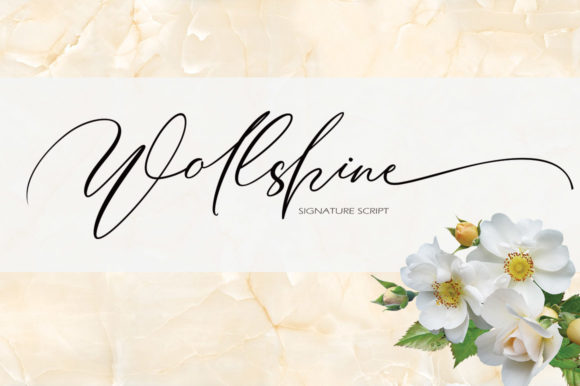
Dive into the enchanting world of Wollshine Font, where classic calligraphy dances with a modern flair. This captivating script, crafted by the talented YanIndesign, is not just a collection of letters; it's a gateway to creativity and expression.
Wollshine's graceful strokes embody the timeless essence of handwritten scripts, yet they are infused with a touch of modernity that sets it apart. Its elegant curves and delicate flourishes speak of a rich heritage, while its subtle contemporary nuances give it a fresh and vibrant appeal.
With Wollshine, your designs will transform into works of art. Its versatility knows no bounds, making it the perfect choice for a wide array of projects – from heartfelt love letters and charming invitations to eye-catching branding and sophisticated social media posts.
Imagine the joy of penning your thoughts and emotions in this enchanting script. Your words will dance across the page, carrying with them the warmth and elegance of a bygone era. Or envision your brand adorned with Wollshine's graceful curves, exuding a timeless sophistication that will leave a lasting impression.
Wollshine Font is not merely a tool; it's an invitation to unleash your creativity and make your designs truly unforgettable. Let its enchanting strokes ignite your imagination and turn your vision into a reality.
Embrace the magic of Wollshine Font, and let your designs shine with a brilliance that will captivate and inspire.